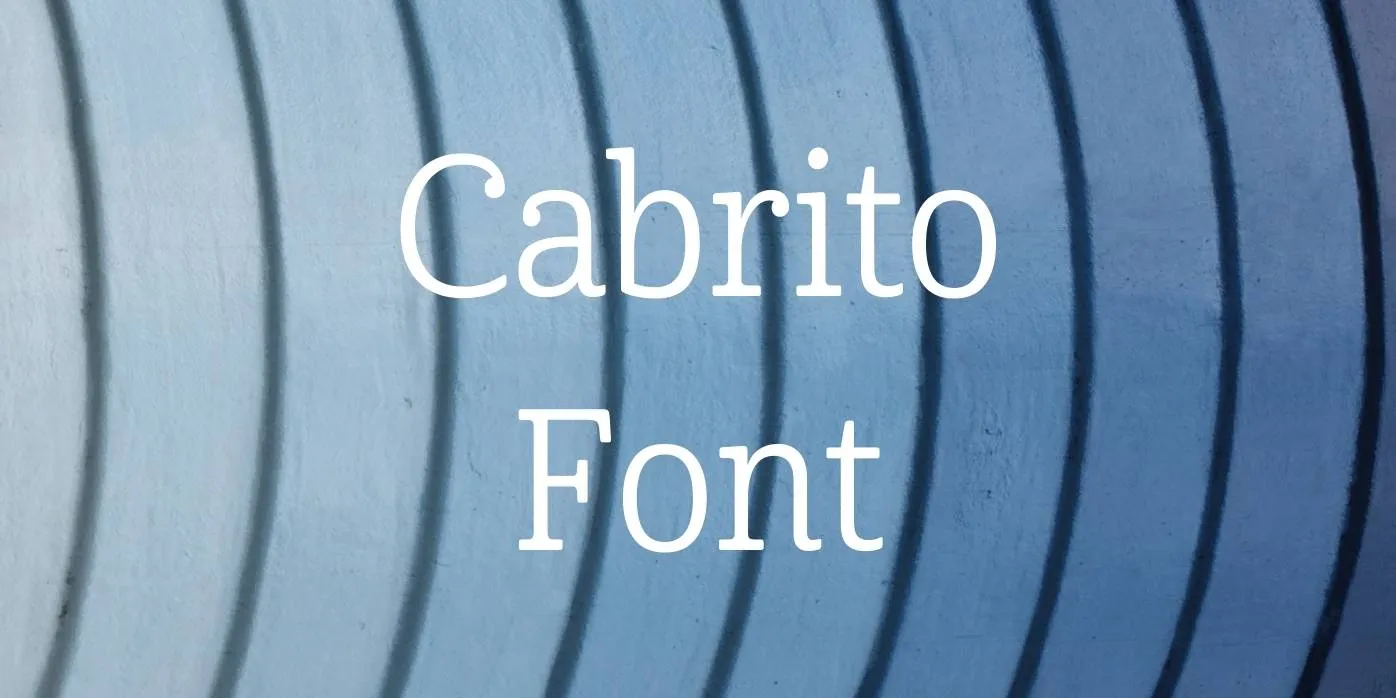
Cabrito Font
Cabrito Font is a famous typeface that is designed by Jeremy Dooley. This stunning typeface belongs to the Serif font family. The designer has created this elegant font with sharp and clean lines. This makes the overall appearance of the typeface look very sophisticated and refined.
If you are looking for a charming and fancy font, then Cabrito Font is the perfect choice for your design functions. This font includes various features that make it ideal for creating elegant designs. Times New Roman Font is similar to this typeface For instance, it comes with old-style numerals, fractions, and ligatures. This typeface also supports extended Latin languages.